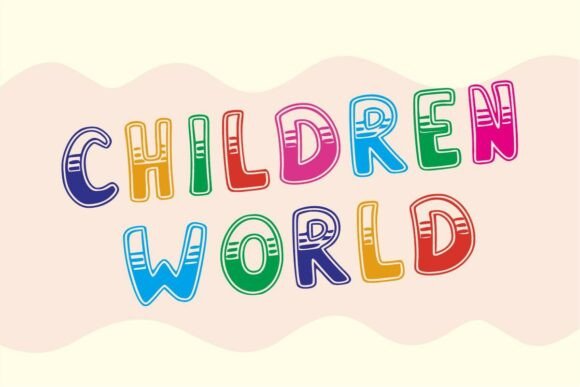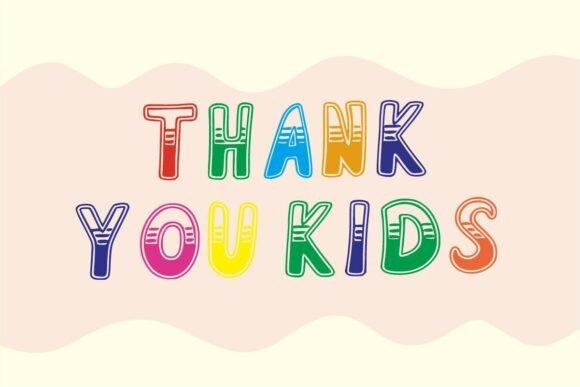
Introduction to Never Gift Font Font
Fonts play a crucial role in design, and the Never Gift Font font is a typeface that brings both character and versatility to any project. Whether you’re working on a branding project, a website, or a print design, the Never Gift Font font offers a unique style that can elevate your work.
βNever Giftβ is a contemporary display font designed with a captivating touch of whimsy.
Each character exudes charm and playfulness, making it easy to incorporate into your projects Discover its seamless compatibility with sublimation designs for a variety of products such as t-shirts, mugs, tote bags, and more.
Key Features of Never Gift Font Font
Why Choose Never Gift Font Font?
The Never Gift Font font is more than just a typeface β it’s a design tool that helps you communicate your message with style and clarity. Its unique character set and versatile design make it suitable for a wide range of applications, from elegant invitations to bold headlines.
With its carefully crafted letterforms and balanced proportions, the Never Gift Font font ensures readability and visual appeal across all mediums.
What makes Never Gift Font font special?
The Never Gift Font font stands out with its unique design, exceptional readability, and versatility across various design applications.